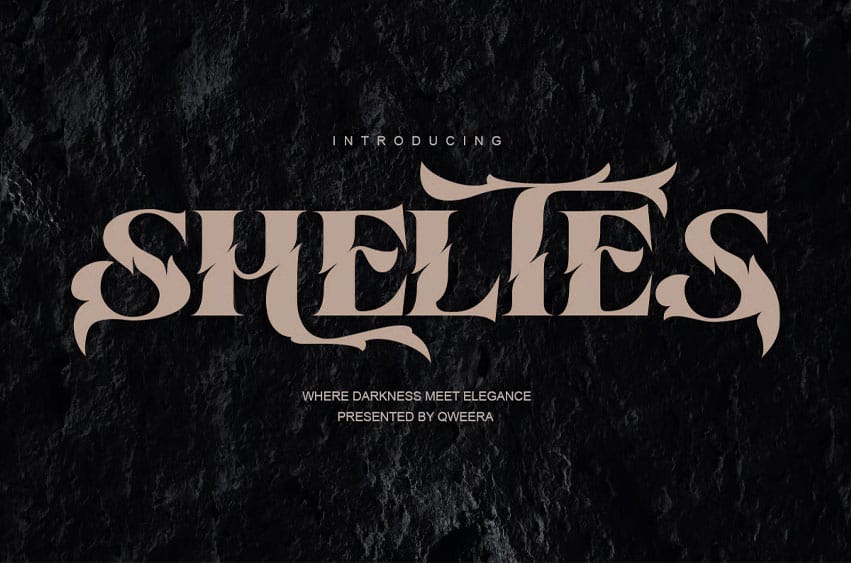
Sheltes Font is a gothic serif font with brutal blackletter energy fused with elegance and sharp ornamental detail.
It’s the perfect typeface for creators who walk the line between darkness and luxury. Designed with assertive swashes and bold curves, Sheltes speaks power, mystery, and exclusivity. A statement font for logos, packaging, gothic editorial layouts, or high-concept branding that demands presence.
Turn every word into an unforgettable emblem.
Sheltes delivers brutal elegance with dramatic impact.